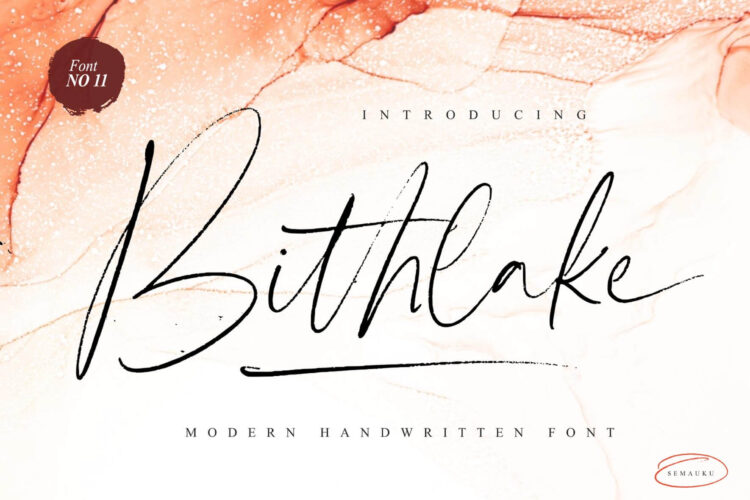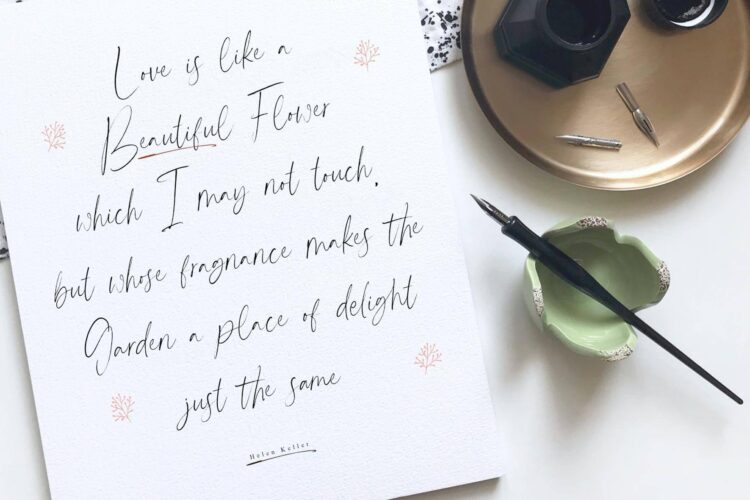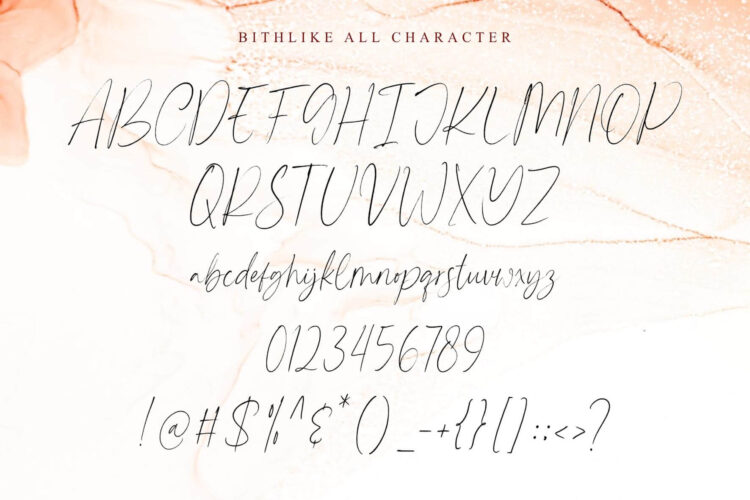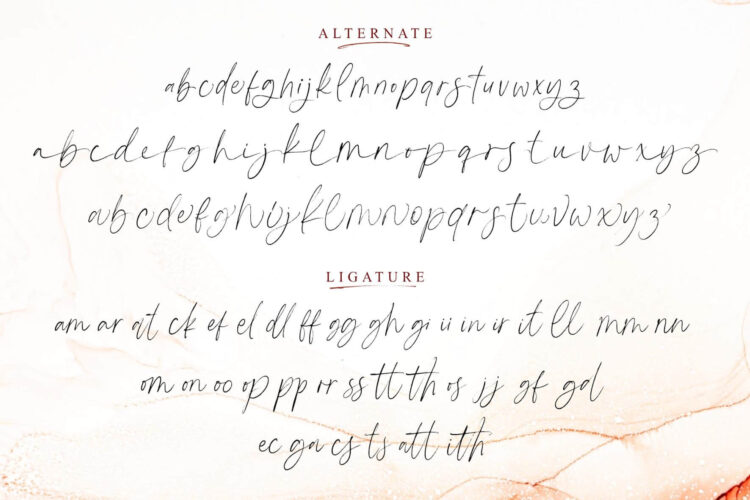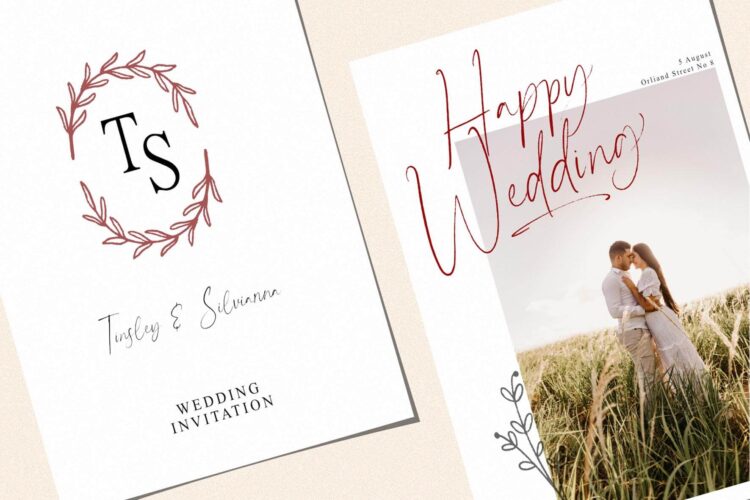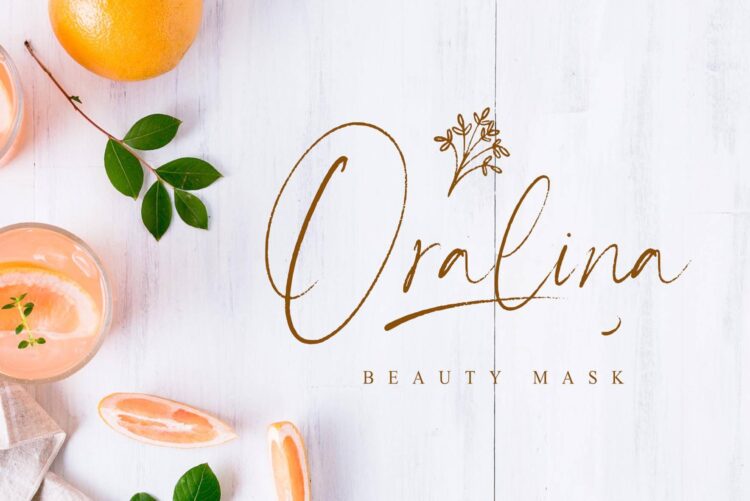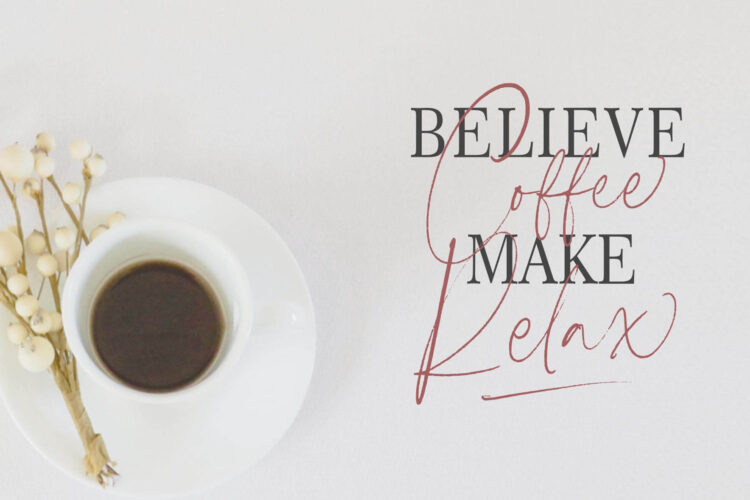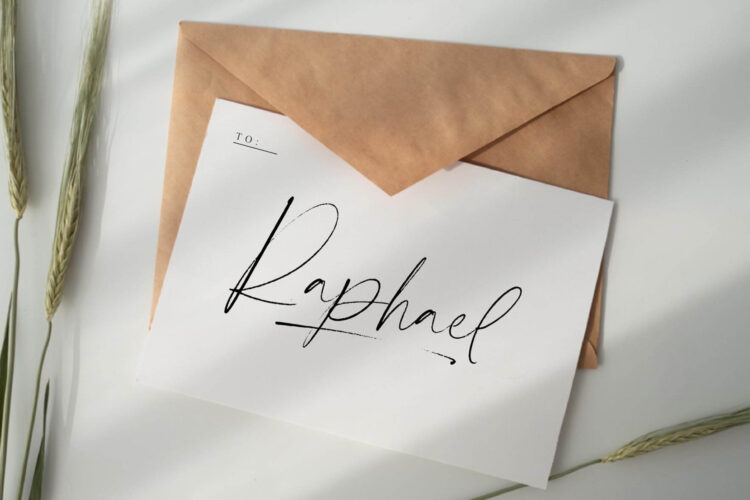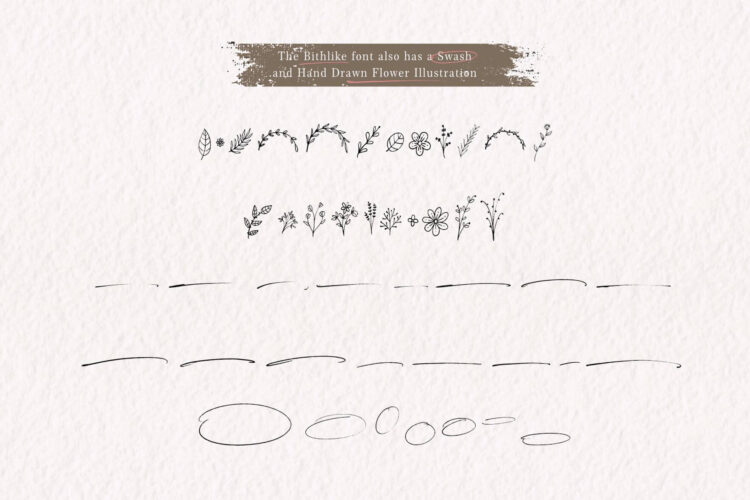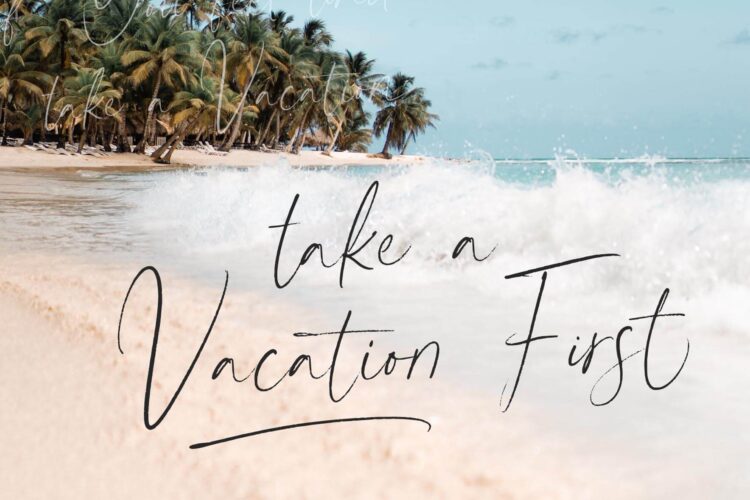
Modern Handwritten Font
Bithlake
Bithlake Swash
Bithlake Font is a hand-drawn font that resembles a ballpoint pen. Made with care and with a sense of love, so it becomes an elegant and classy handwritten script font.
We also provide swash and flower illustrations so that the Bithlake font can be made into a beautiful logo. Besides being used to create logos, the Bithlake font can also be applied to Branding, Invitation Card, Magazine, Apparel, Merchandise, Quotes and others
Feature :
– Uppercase
– Lowercase
– Numeral and Punctuation
– Multilingual Support
– Stylistic Alternate
– Swash
– Ligature